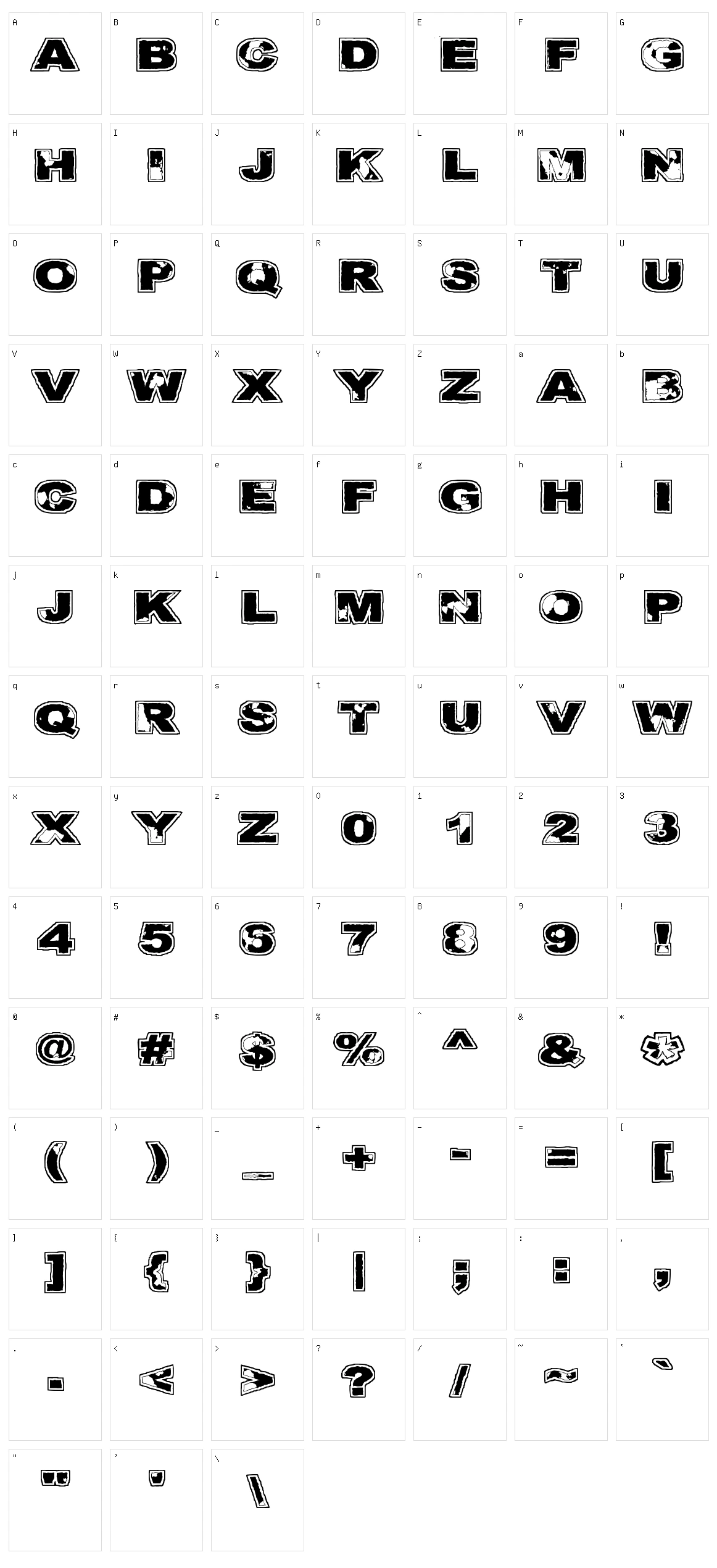
The free font Kulkeuma is carefully designed by junkohanhero, showcasing a thoughtful balance of creativity and usability and falls under the Eroded font style. When you download the ZIP file, it contains only 73.21 KB of font files, making it lightweight and quick to download. Please review the license details below to understand permitted usage and distribution rights. If license information is not available, we recommend using this font for personal projects only or contacting the author directly for commercial usage permissions.